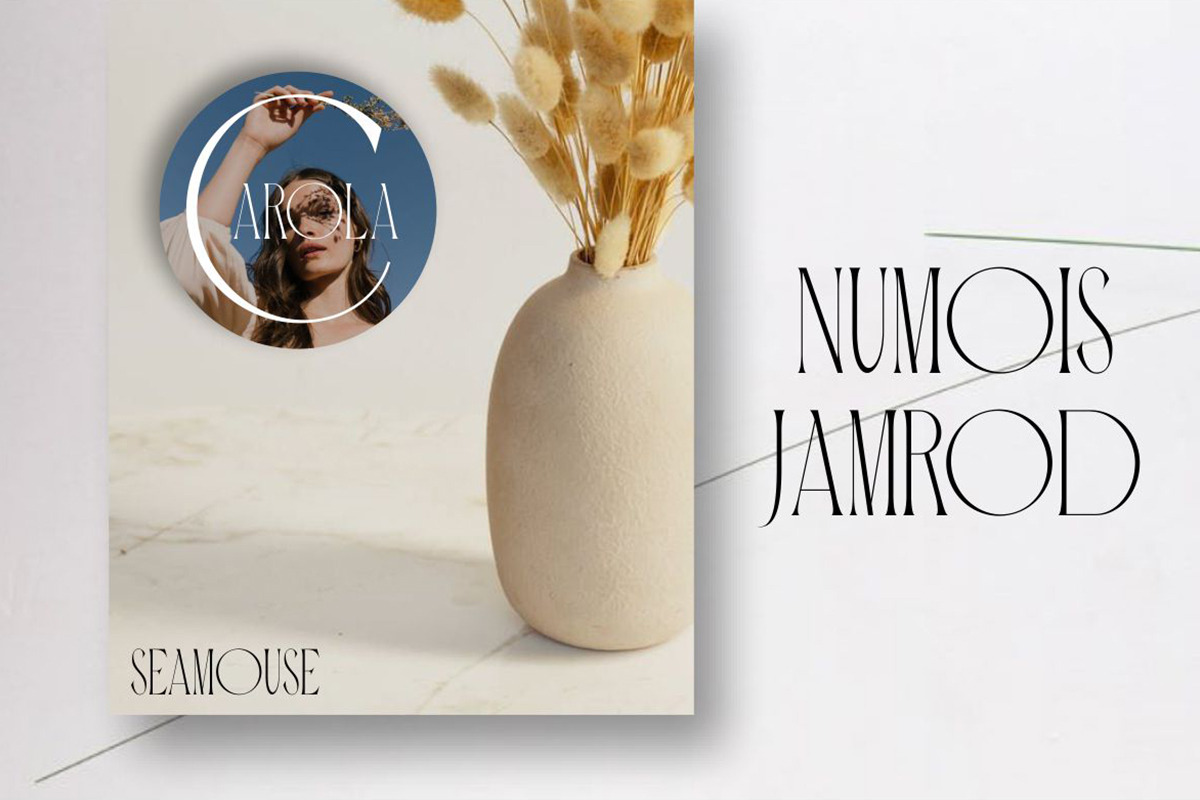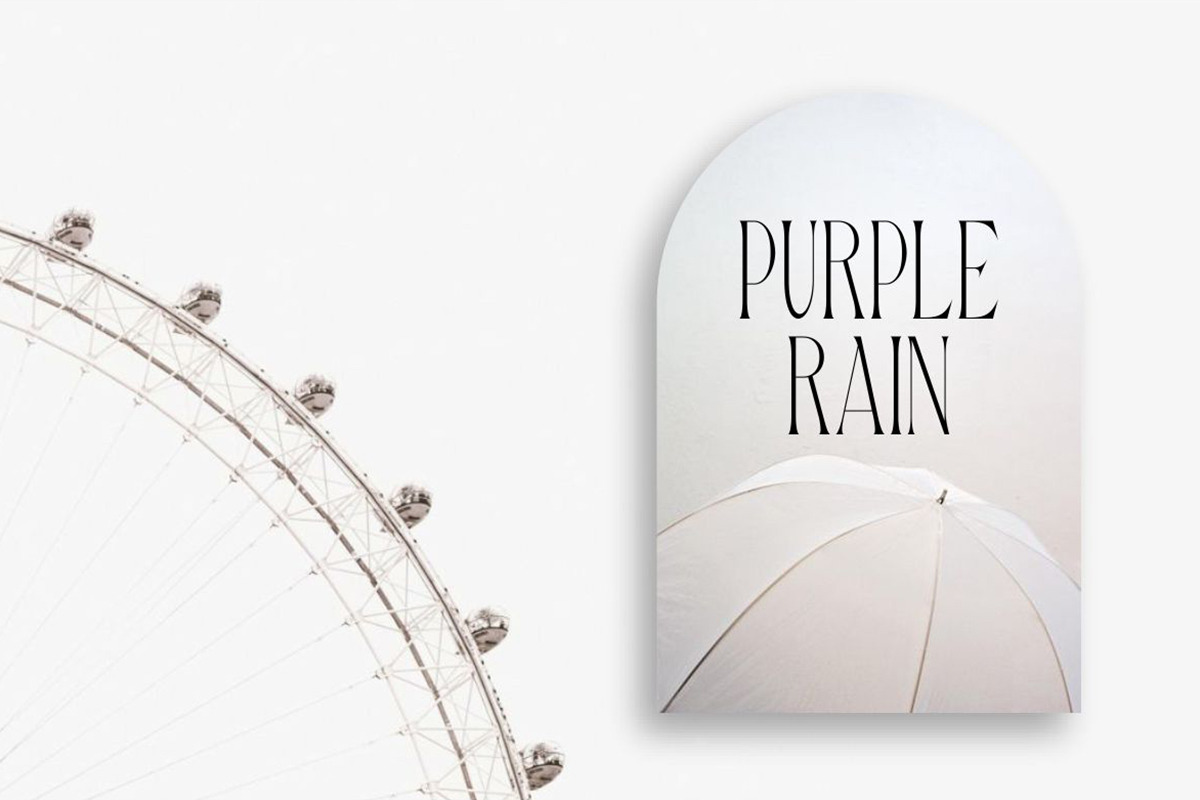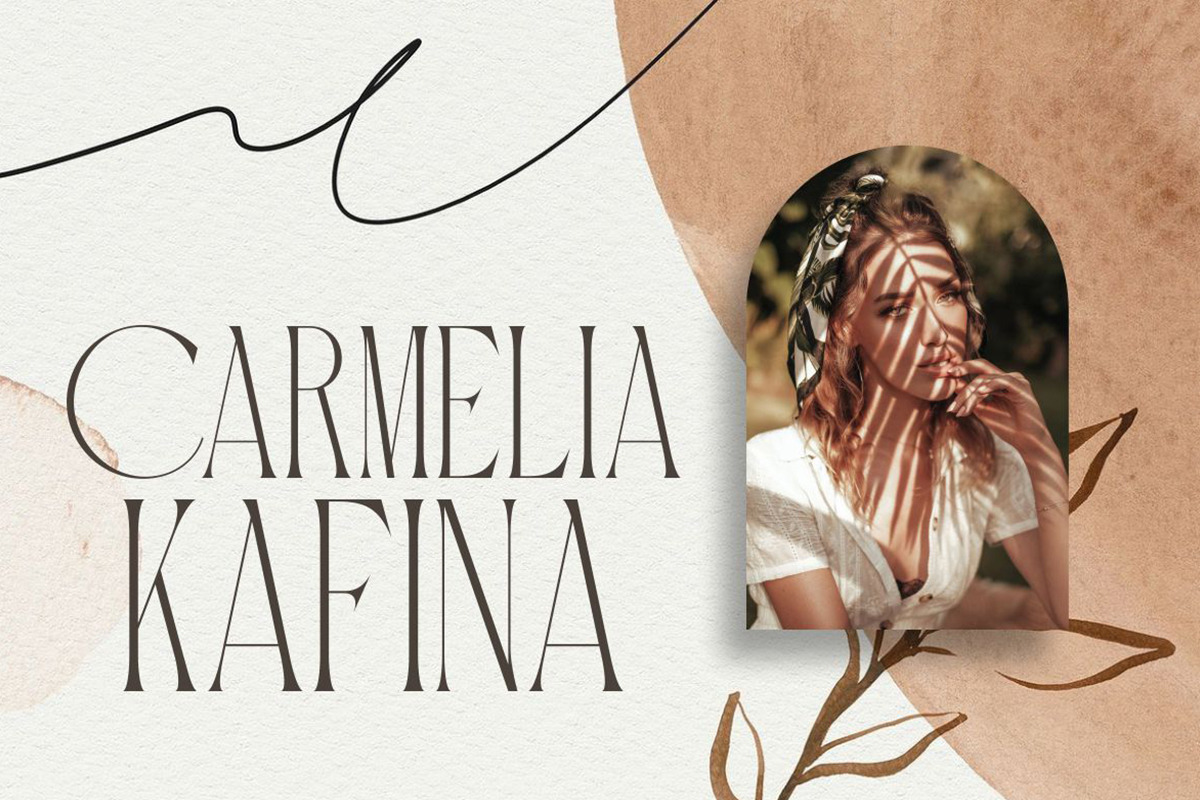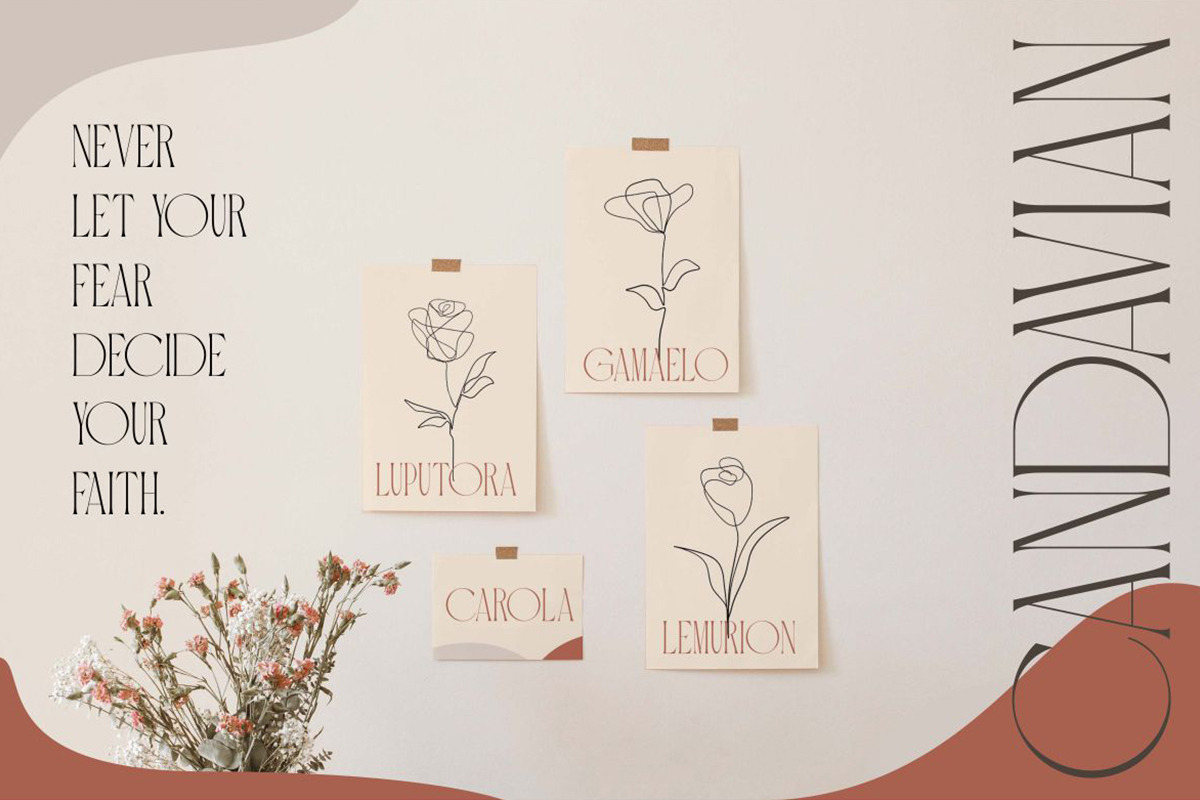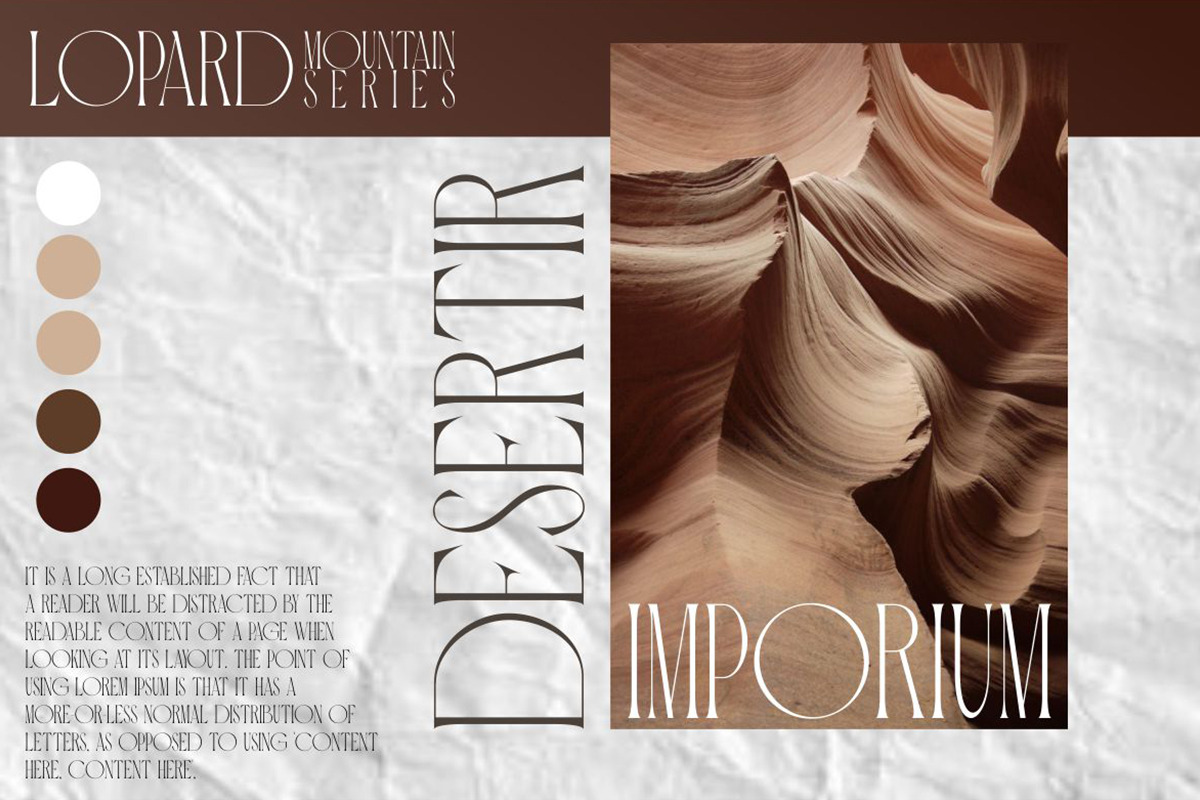
Carola Font
Carola is a serif font with modern style. Created for poster, web design, branding, illustrations, badges and some other works. The font includes uppercase letters, numerals, a large range of punctuation.
Carola Modern Serif Font